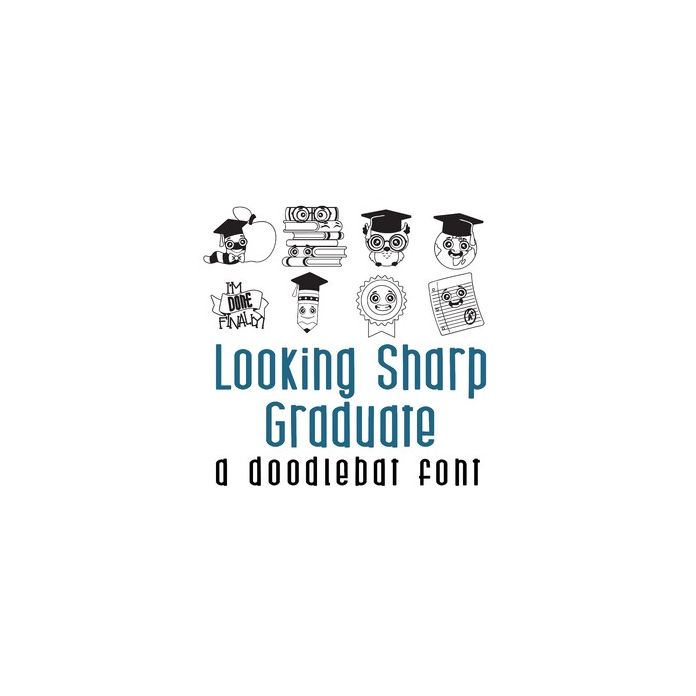
This adorable doodlebat font features 26 kawaii style graduation themed imagery. Perfect for classrooms, students, crafts, gifts, cardmaking, scrapbook pages, graduation and more!